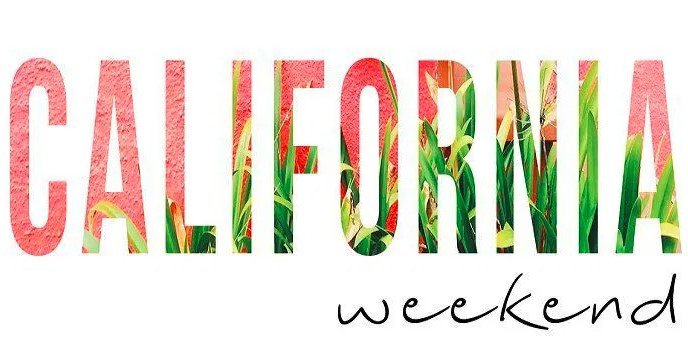
Presenting the top-notch California Font, a large and high-quality typeface created by Dirt2.com. This fantastic font is offered free of charge, allowing designers to use it in commercial projects at no cost.
View Of California Font
Here we provide an image which includes the characters and letters of this beautiful. You can perceives it by viewing on the image and get an idea how delightful it is.
This is beautiful display typeface that contains large characters set and having capability to use with the combination of wreath font.
This unque and elegant font that is best to use with love letters script which has a popular texture so that can also be used in pairing also. That’s why each designer treated it as a really perfect font in all appreciate.